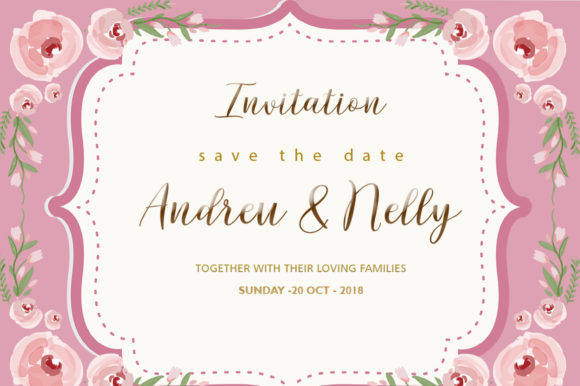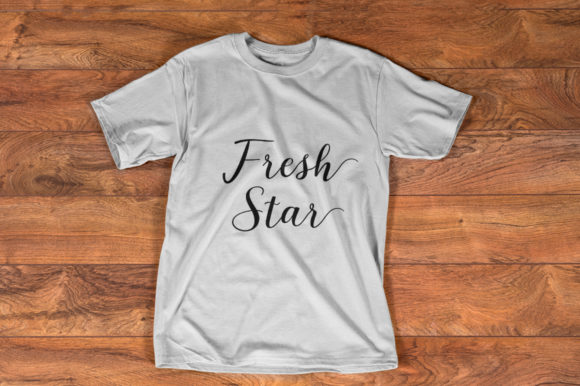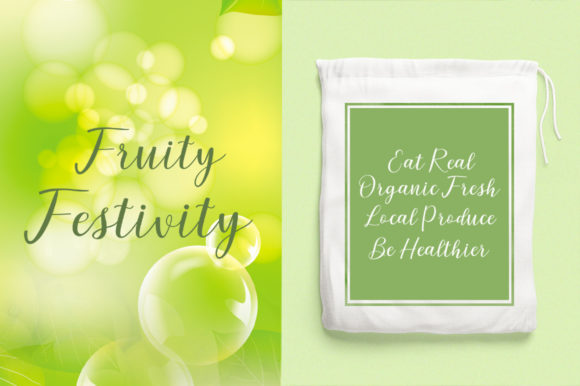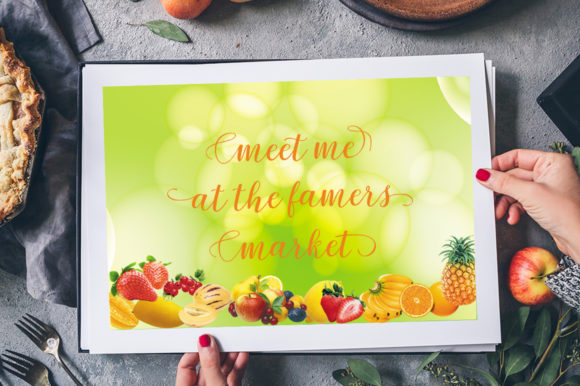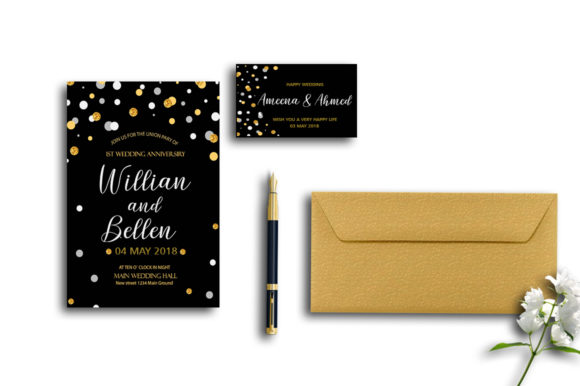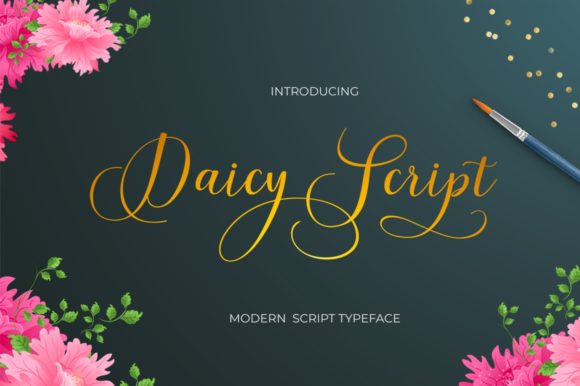
The Daicy Script Font: A Modern, Trendy, and Feminine Addition to Your Design Arsenal
I’ll never forget the time I was working on a wedding invitation project, and my client asked for a font that was both elegant and playful. I scoured the internet, trying out font after font, but nothing seemed quite right. That was until I stumbled upon the Daicy script font. With its irregular baseline and trendy, feminine feel, it was love at first sight! In this article, I’ll share my experience with the Daicy script font, its features, and how to make the most of it in your designs.
An Honest Review of Daicy Script Font
- ✨ The unique, irregular baseline that gives it a hand-written feel
- ✅ The perfect blend of elegance and playfulness, making it suitable for a wide range of projects
- 💃 The font’s versatility – it works beautifully for both digital and print designs
- 👍 The OpenType features, including glyphs and stylistic alternates, which allow for endless customization options
While the Daicy script font is an excellent addition to any designer’s toolkit, there are a few things to keep in mind:
- 🤔 The font can be a bit challenging to read at smaller sizes, so it’s best used for headlines or titles
- ⚠️ Some of the more intricate details may not render well on certain devices or browsers, so it’s essential to test your design before finalizing it
The Story Behind Daicy Script Font
The Daicy script font was designed with the intention of creating a modern, feminine font that would be perfect for a wide range of creative projects. The designer aimed to create a font that was both elegant and playful, with a unique, irregular baseline that would give it a hand-written feel.
Q: What is the Daicy script font best used for?
A: The Daicy script font is perfect for wedding invitations, thank you cards, quotes, greeting cards, logos, business cards, and more.
Q: Is the Daicy script font suitable for body text?
A: While the Daicy script font is beautiful, it’s best used for headlines or titles. It can be challenging to read at smaller sizes, so it’s not recommended for body text.